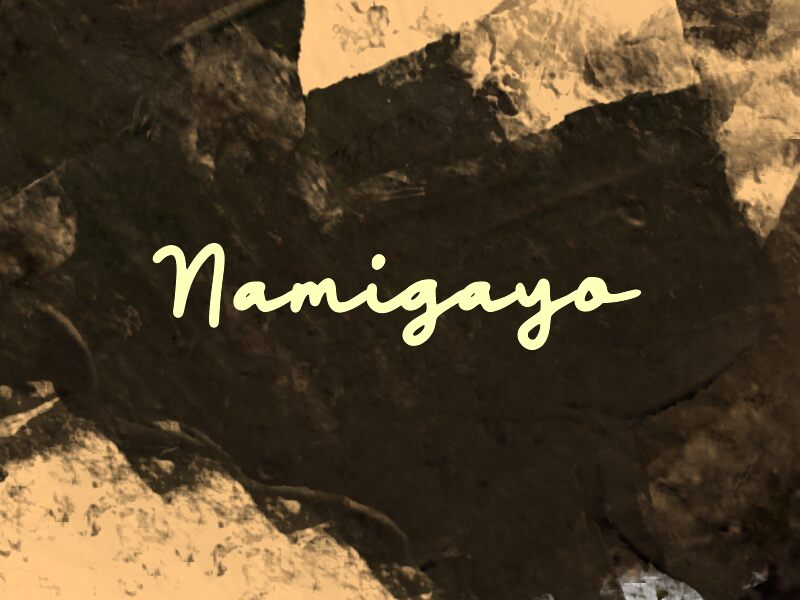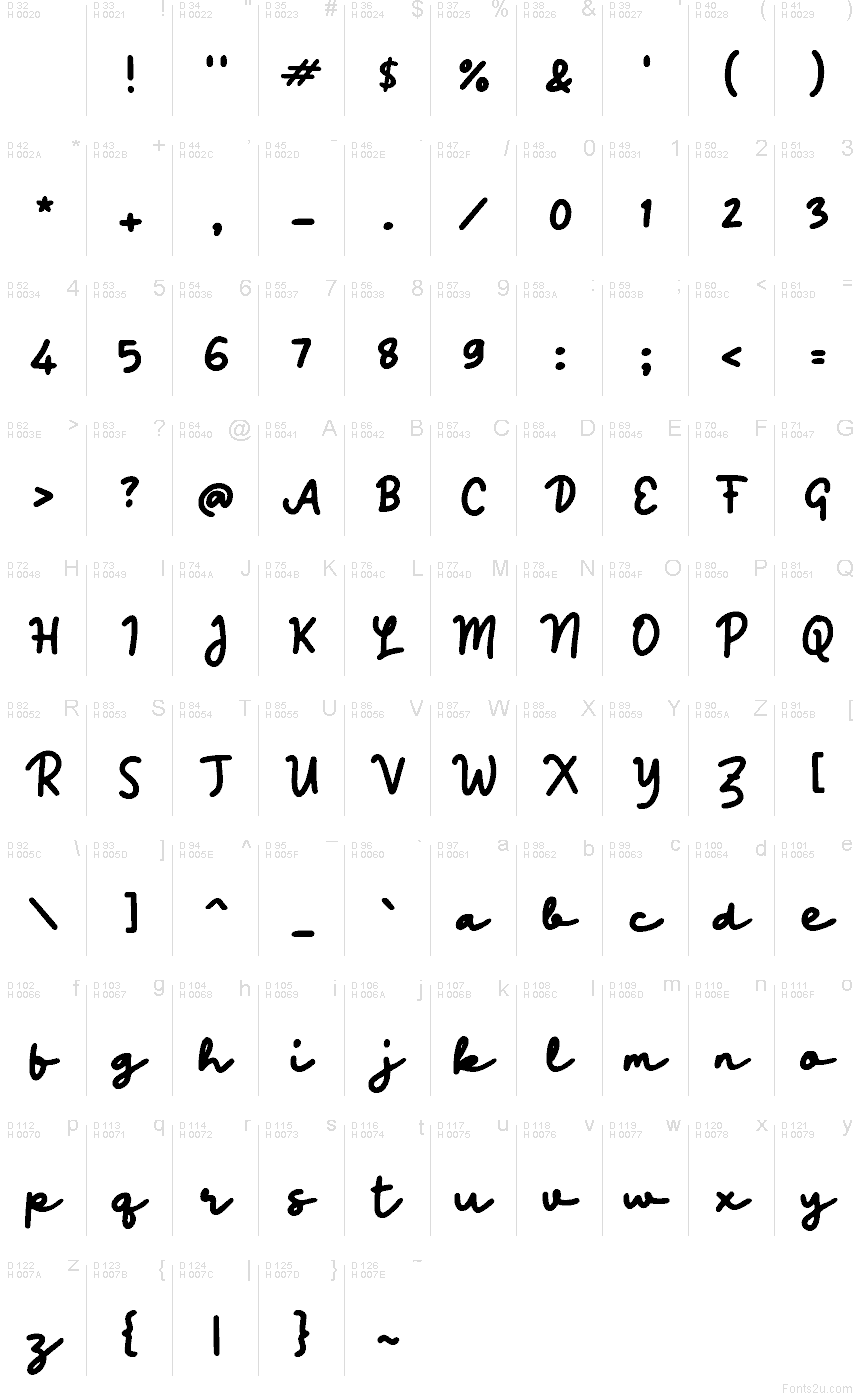
Namigayo
Namigayo font by wep is a free handwritten typeface that captures the feel of quick, confident marker pen writing without sacrificing clarity. Its smooth, rounded strokes and steady rhythm give words an easy flow, while the consistent weight keeps even longer lines pleasantly readable. There’s a relaxed, human warmth to it—like a signature scrawled in one go—yet it stays tidy enough for real-world branding and layouts.
Using Namigayo, you can give personality to social media graphics, quote posts, casual logos, packaging, greeting cards, and YouTube thumbnails. This free font shines when you need copy to feel personal and approachable but still clean on screen. Try pairing Namigayo with a simple geometric sans serif for body text, and let Namigayo handle headlines, names, or short phrases at medium to large sizes.